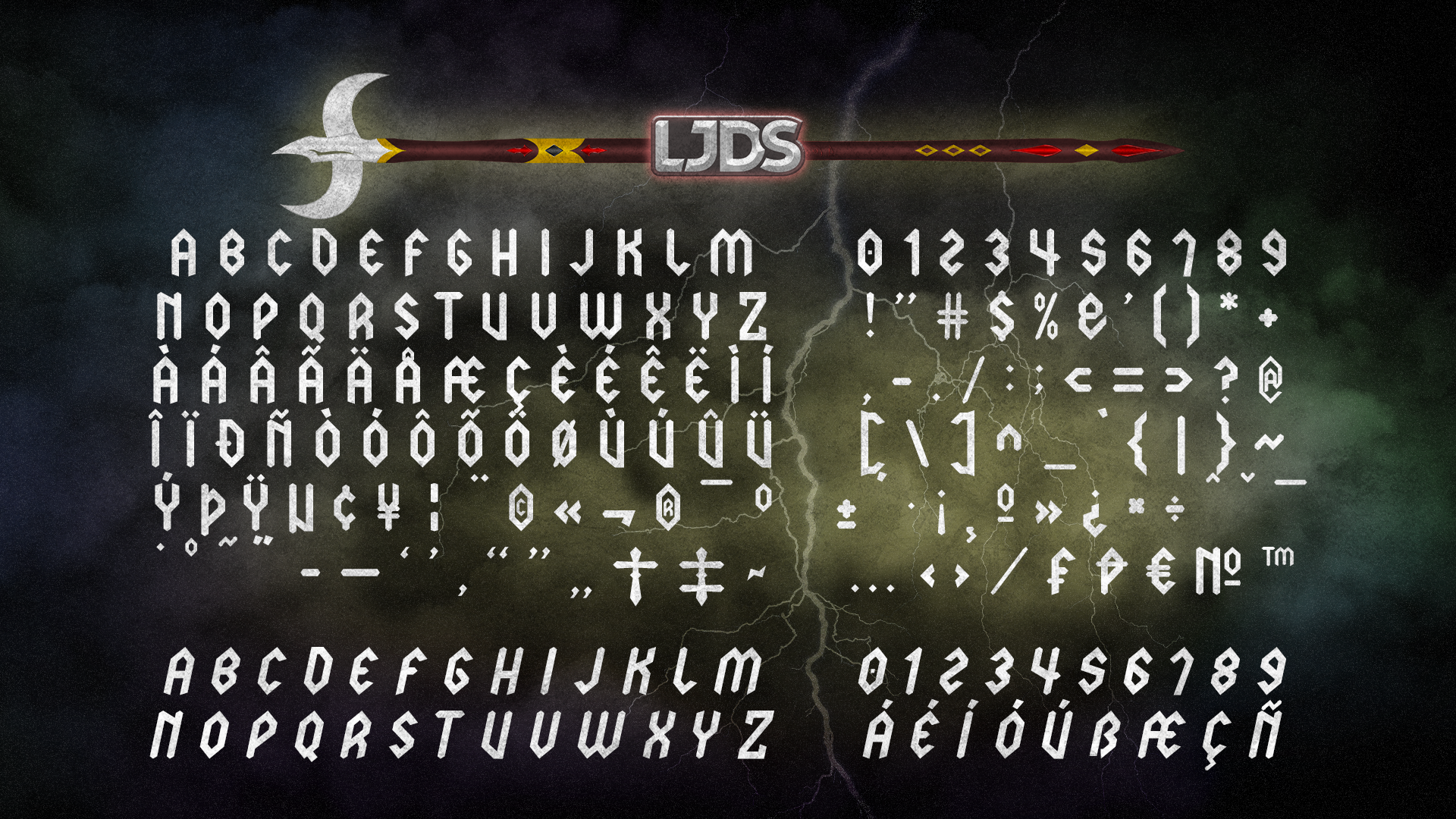
LJ Power Metal Font
Inspired by power metal music and medieval art, LJ Power Metal Font is a traditional style perfect for a simple logo within this music genre or for uses related to this type of art. Among the new features, we offer an Italic style (simple, built into the Style Alternates feature).